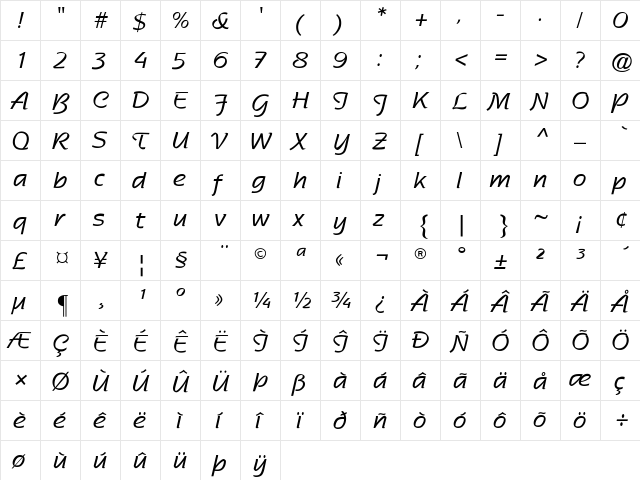
ATNadianne-Medium
Design Context for ATNadianne-Medium Typeface
ATNadianne-Medium offers clean, dependable letterforms without strong stylistic allegiance, making it a practical choice for designers who need flexibility.
Pro Tip: Use ATNadianne-Medium in both headline and body roles to test its range before committing to a single application.